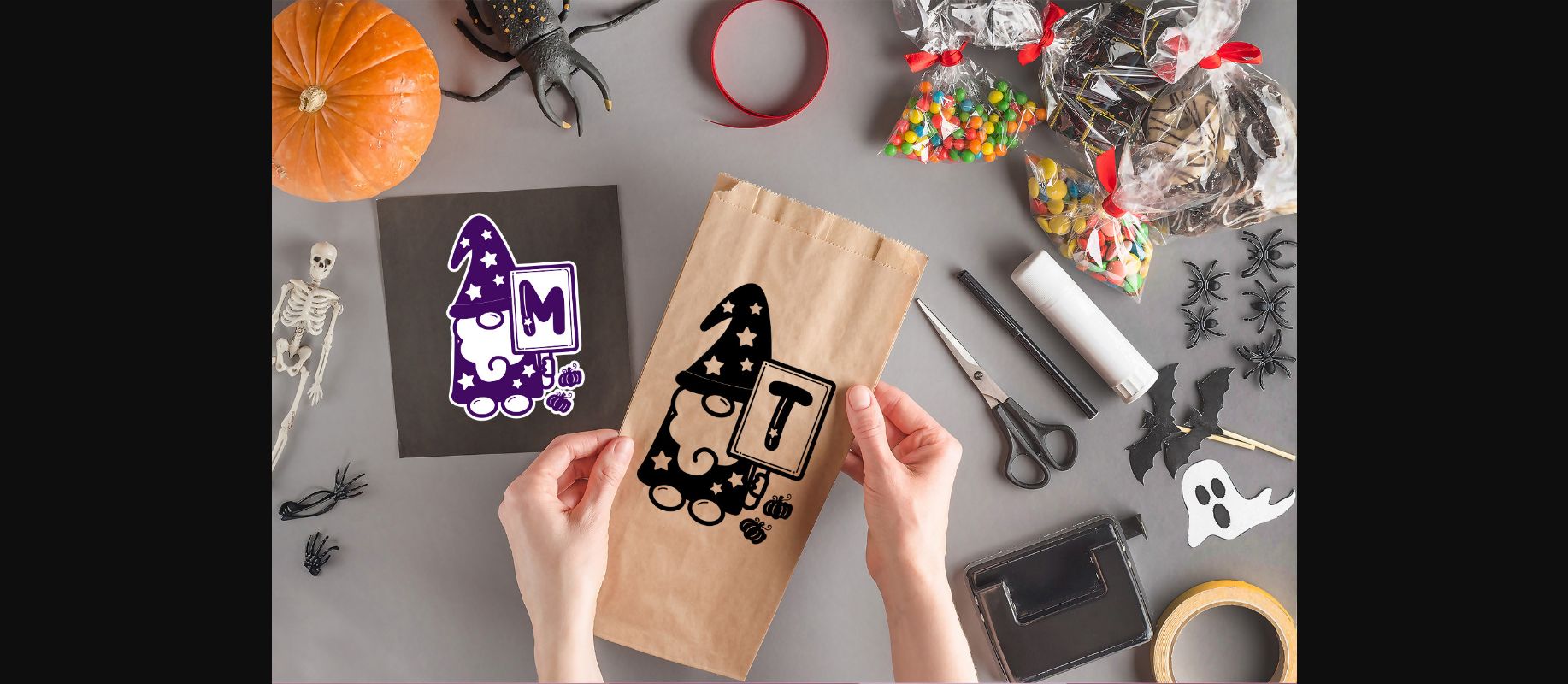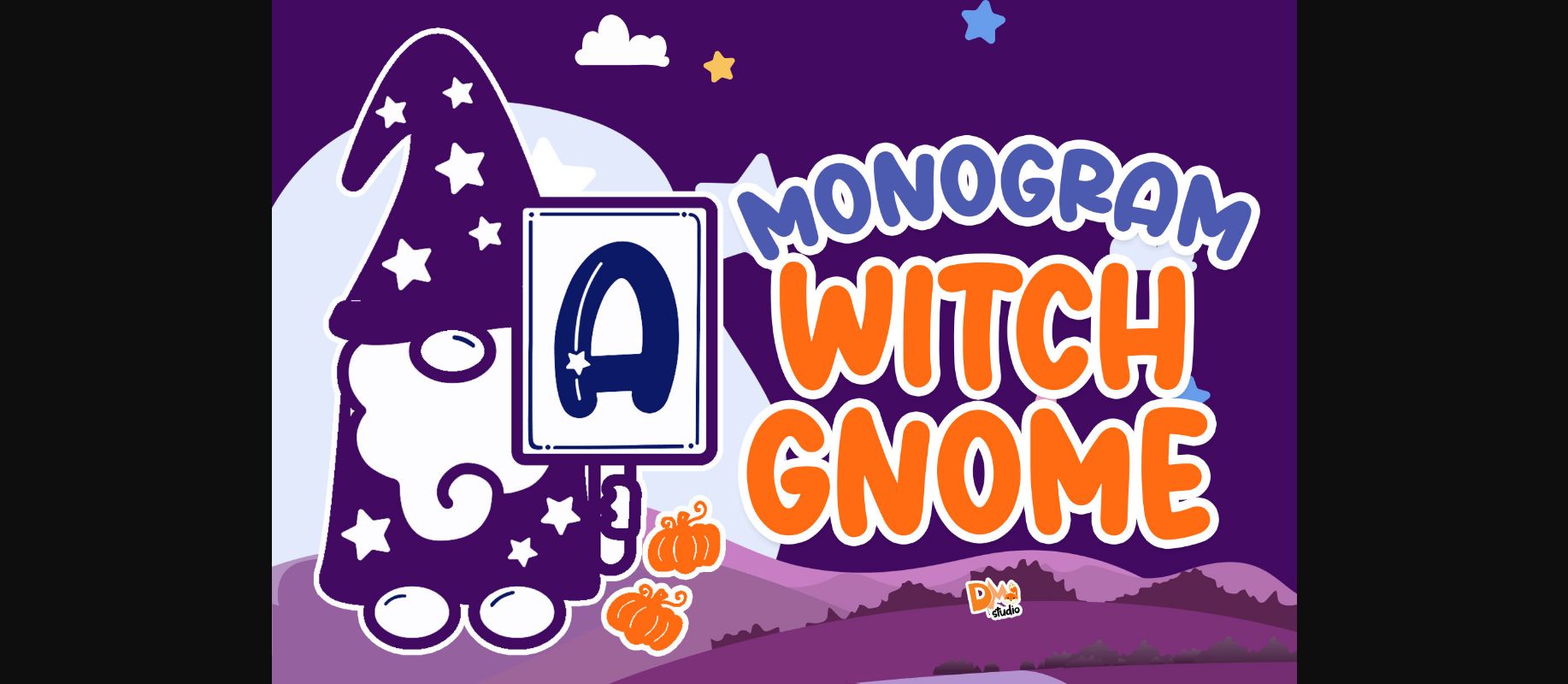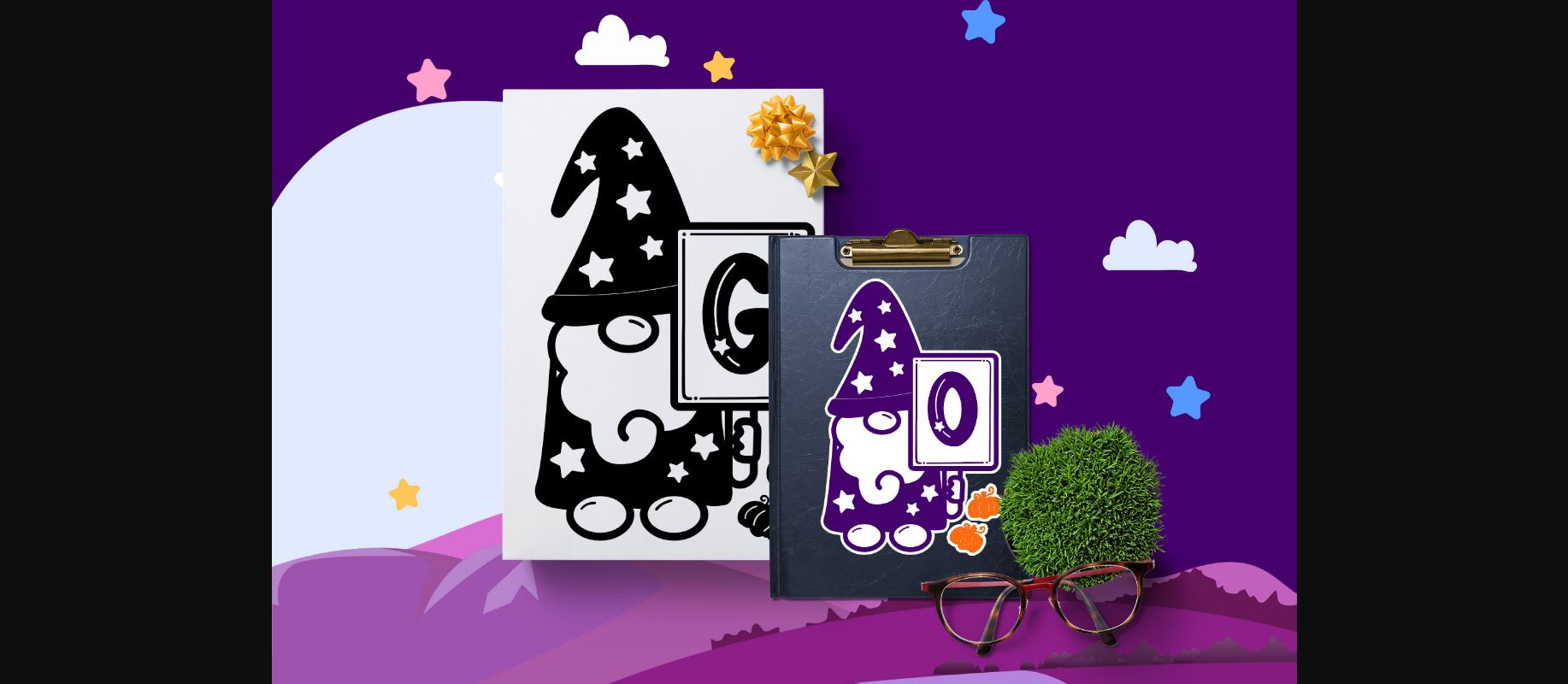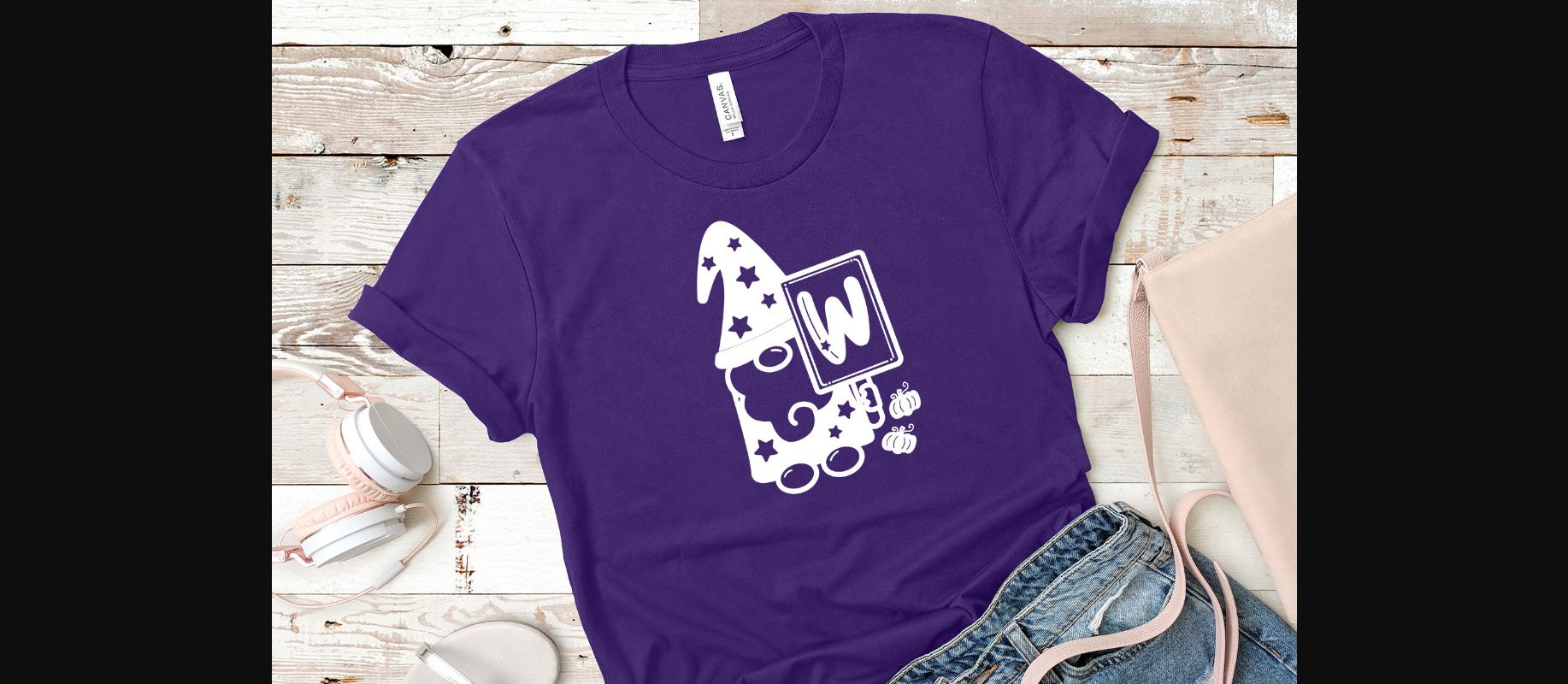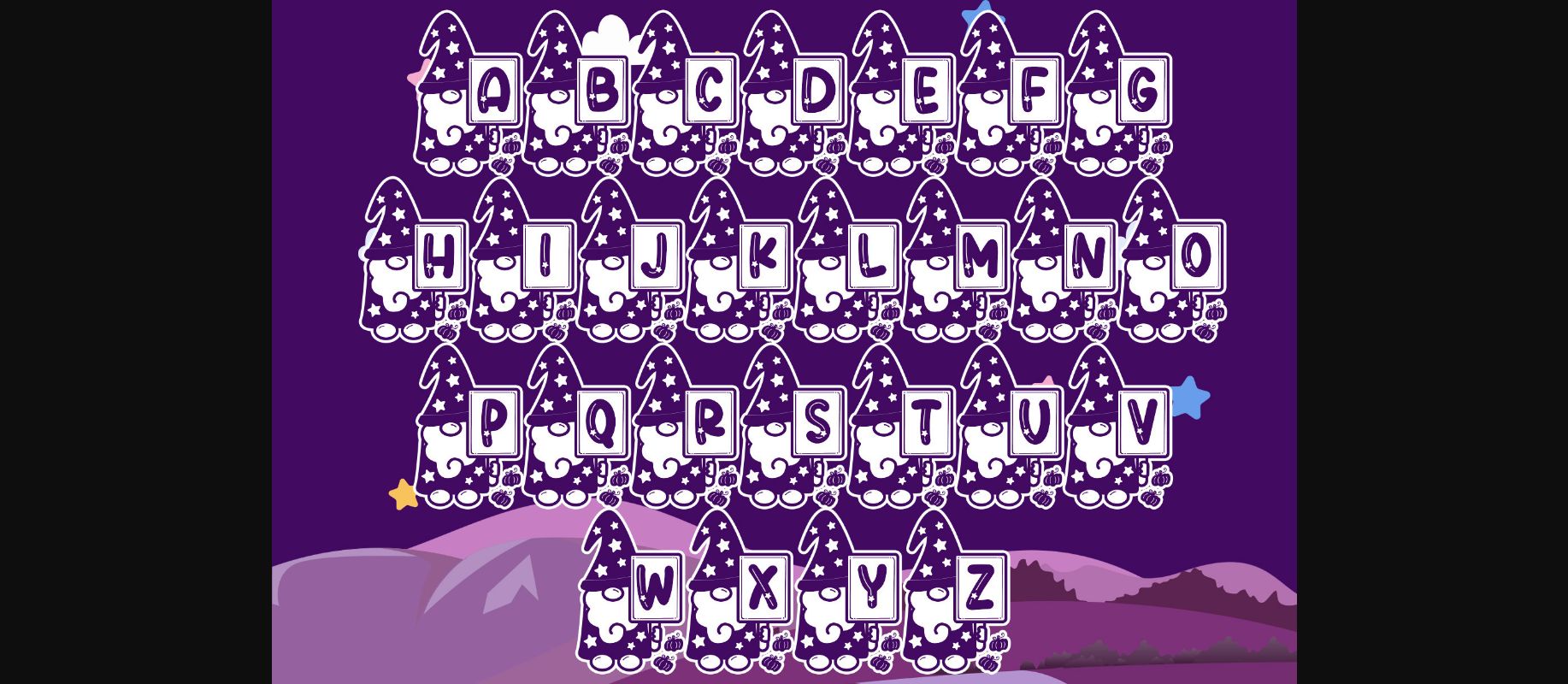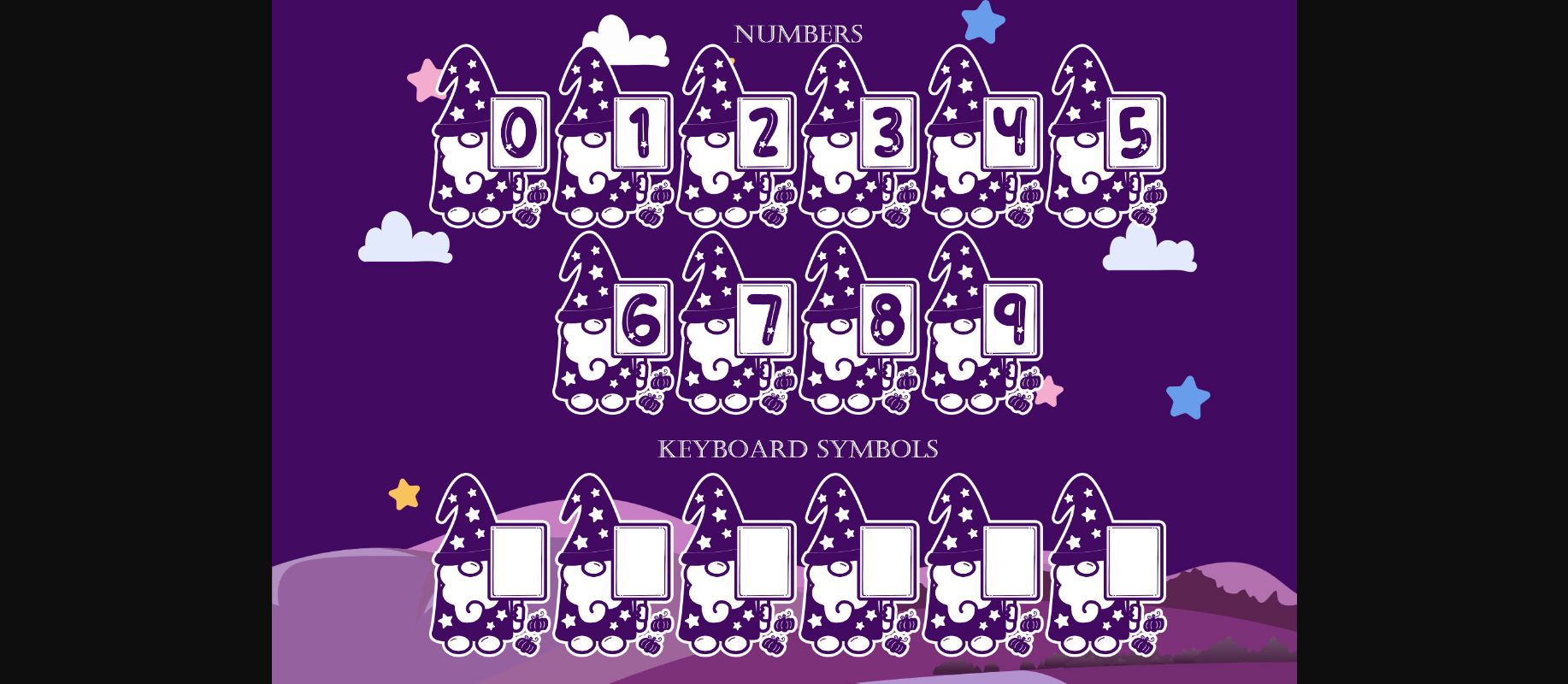
Monogram Witch Gnome Font
About Monogram Witch Gnome Font
Monogram Witch Gnome is a cool and incredibly original decorative font. Whether you use it for cartoon related designs, children games or just any creation that requires a lovely touch, this font will be an amazing choice.